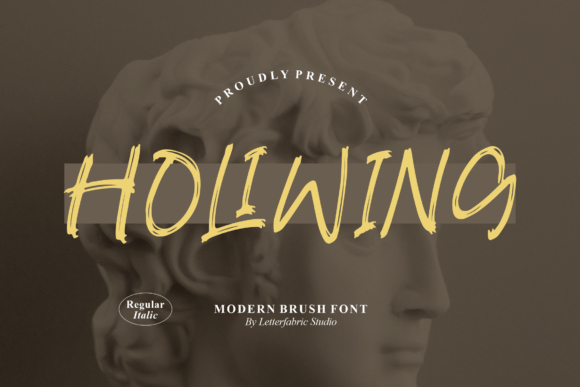
Unveil the Enchanting Holiwing Script Font, Crafted to Grace Your Designs with Timeless Elegance
Journey into the world of timeless elegance with the Holiwing Script Font, an exquisite creation from Letterfabric. Every curve and stroke of this modern handwritten font exudes charm, adding a touch of sophistication to your design endeavors.
Whether you're crafting a captivating logo, designing a heartfelt wedding invitation, or creating a product label that radiates with personality, the Holiwing Script Font is the perfect choice to convey your message with flair. Its versatility shines through effortlessly, adapting seamlessly to a multitude of projects, from homeware designs and product packaging to mugs, posters, and even T-shirts.
With its ability to transform ordinary words into captivating expressions, the Holiwing Script Font is a storyteller's dream. Your heartfelt quotes and meaningful texts will take on a new life, resonating with your audience with an emotional depth that lingers.
Dive into the depths of creativity with the Holiwing Script Font as your guide. Its graceful lines and elegant curves will inspire you to create designs that captivate and enchant, leaving an unforgettable impression on all who behold them.
Elevate your designs to new heights of beauty and sophistication with the Holiwing Script Font. It's more than just a font; it's a gateway to a world of exquisite design possibilities, where your creativity knows no bounds.